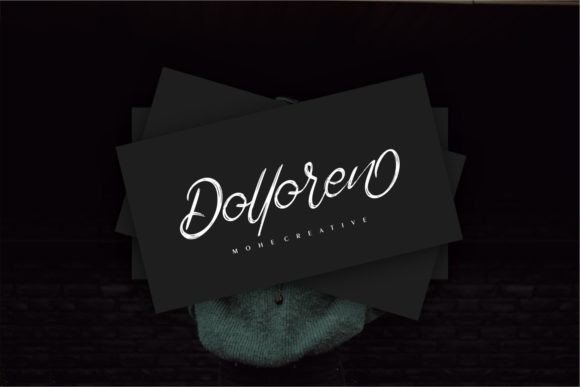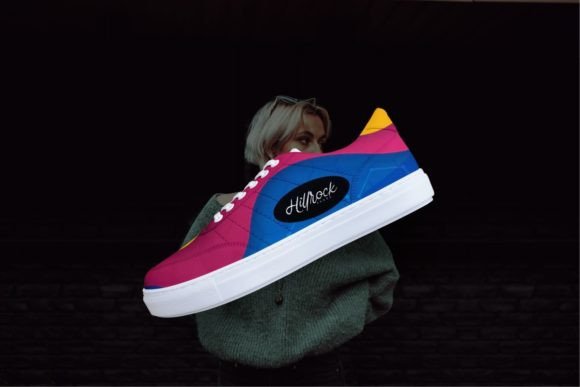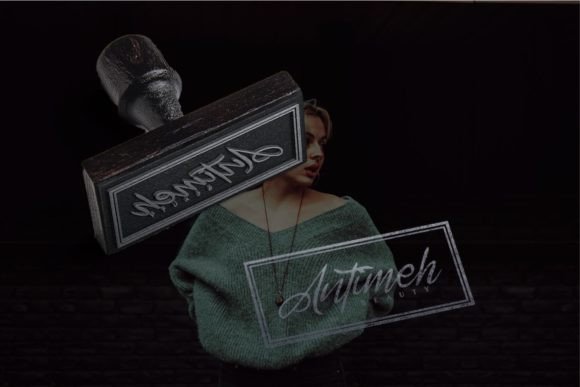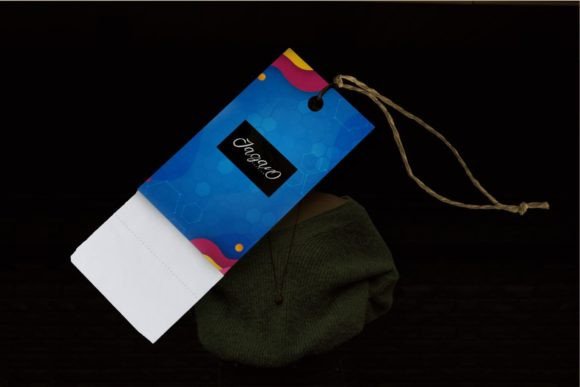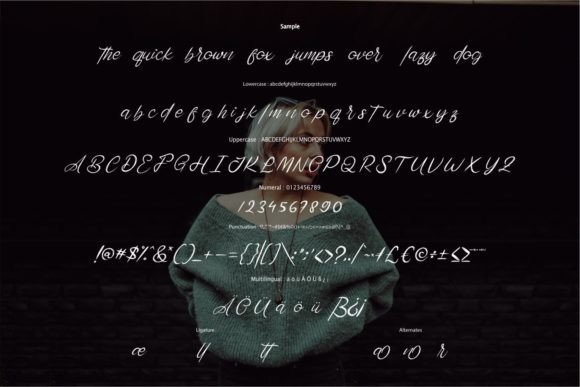
Balleda Font: The Modern Handwritten Script Font You Need
Are you tired of using the same old fonts in your designs? Look no further than Balleda Font, a modern and cool handwritten script font that’s sure to take your creations to the next level. With its incredibly distinct and timeless style, Balleda Font is the perfect choice for designers and crafters looking to add a touch of elegance and sophistication to their work.
The Unique Style of Balleda Font
Balleda Font is a truly one-of-a-kind font that boasts a unique and stylish aesthetic. Its handwritten script design features flowing lines and curves that give it a sense of movement and fluidity. The font’s modern and cool style makes it perfect for a wide range of design applications, from branding and advertising to packaging and digital media.
What Makes Balleda Font So Special?
So, what sets Balleda Font apart from other fonts on the market? Here are just a few of the key features that make it so special:
- Incredibly distinct style: Balleda Font has a unique and recognizable style that’s sure to grab attention and leave a lasting impression.
- Timeless appeal: Unlike some fonts that can look dated or trendy, Balleda Font has a timeless quality that will ensure your designs look great for years to come.
- Versatility: Balleda Font is incredibly versatile and can be used in a wide range of design applications, from headings and titles to body text and more.
- Easy to read: Despite its elegant and cursive design, Balleda Font is surprisingly easy to read, making it perfect for use in both digital and print materials.
How to Use Balleda Font in Your Designs
So, how can you use Balleda Font to take your designs to the next level? Here are a few ideas to get you started:
- Branding and logos: Use Balleda Font to create a unique and memorable logo or brand identity that will help you stand out from the competition.
- Advertising and marketing: Balleda Font is perfect for use in advertising and marketing materials, such as brochures, flyers, and social media graphics.
- Packaging design: Add a touch of elegance and sophistication to your product packaging with Balleda Font.
- Digital media: Use Balleda Font in your digital media, such as website headers, email newsletters, and social media graphics.
Tips for Getting the Most Out of Balleda Font
Here are a few tips for getting the most out of Balleda Font:
- Experiment with different sizes and colors: Don’t be afraid to experiment with different sizes and colors to find the perfect combination for your design.
- Pair it with other fonts: Balleda Font pairs well with a wide range of other fonts, so don’t be afraid to get creative and try out different combinations.
- Use it consistently: To get the most out of Balleda Font, use it consistently across all of your design materials to create a cohesive and recognizable brand identity.
In conclusion, Balleda Font is a modern and cool handwritten script font that’s perfect for designers and crafters looking to add a touch of elegance and sophistication to their work. With its incredibly distinct and timeless style, Balleda Font is sure to take your designs to the next level and help you stand out from the competition. So why wait? Fall in love with Balleda Font today and start creating spectacular designs that will leave a lasting impression!